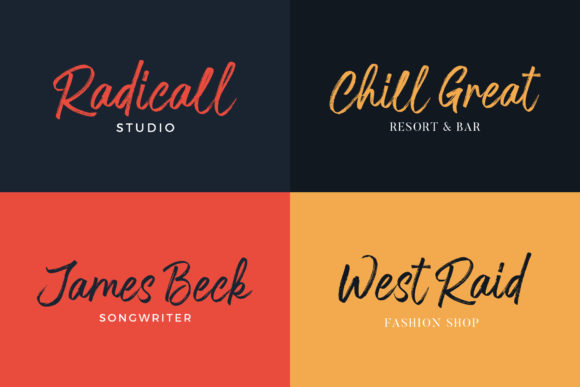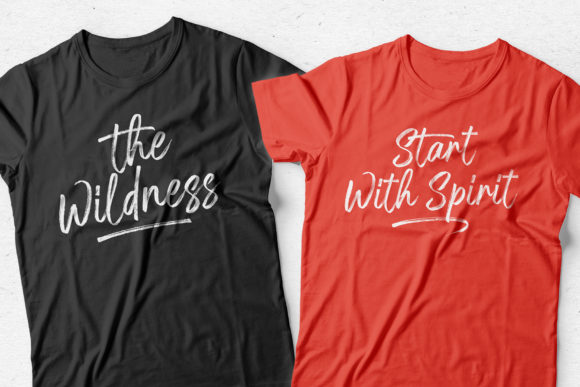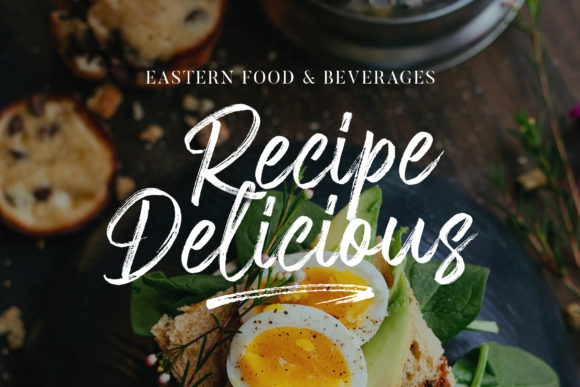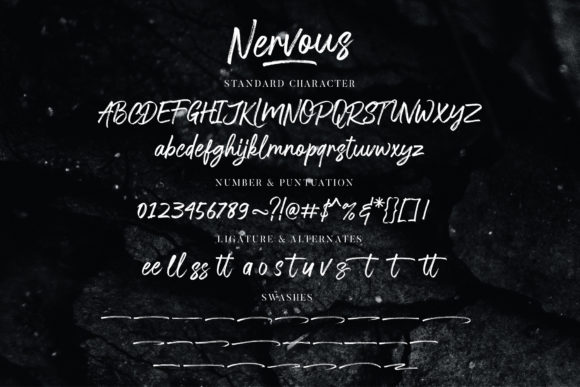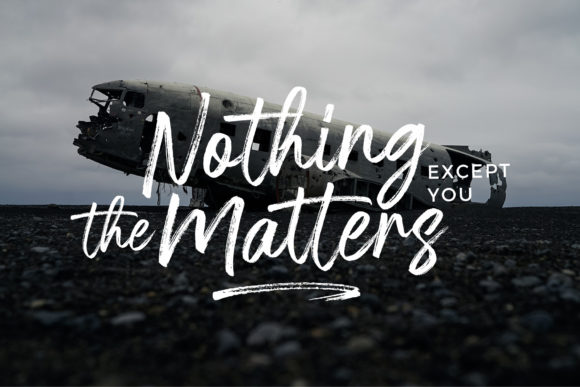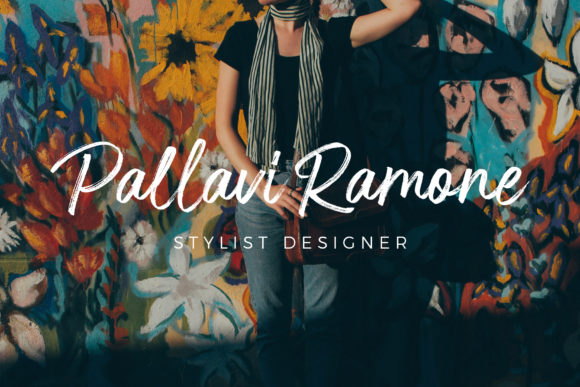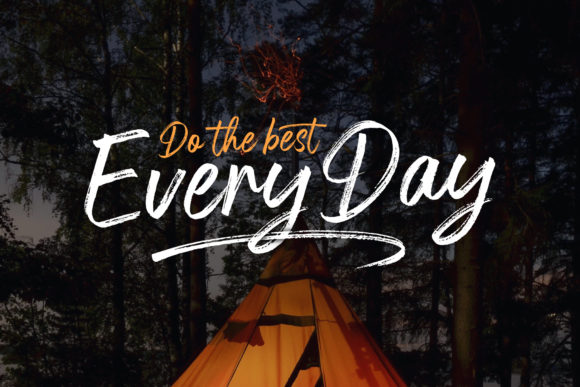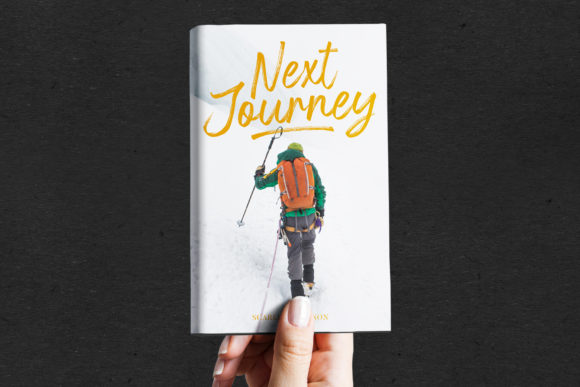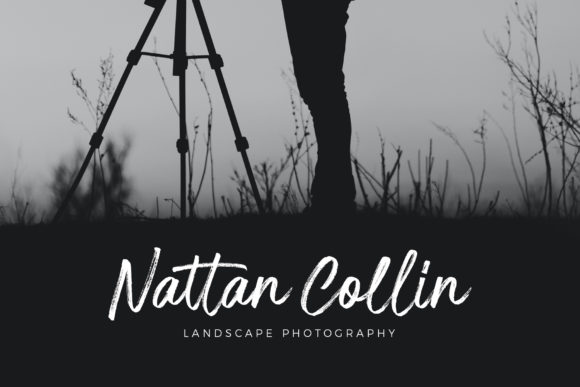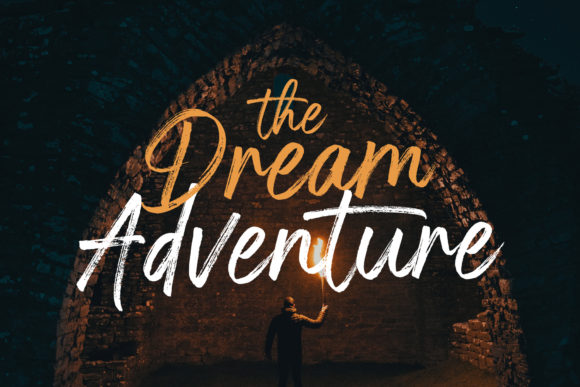
HomeScript FontsNervous Font Script Fonts Nervous Font FacebookXPinterestWhatsApp Nervous Font Poster 2 Nervous Font Poster 3 Nervous Font Poster 4 Nervous Font Poster 5 Nervous Font Poster 6 Nervous Font Poster 7 Nervous Font Poster 8 Nervous Font Poster 9 Nervous Font Poster 10 Nervous Font Poster 11 Nervous Font Poster 12 Nervous Font Poster 13 Nervous Font Poster 14 About Nervous Font Nervous is a handwritten brush font with a bold twist. It will add an authentic spark to any creative project! DOWNLOAD ON CREATIVE FABRICAThis font is sold and delivered by Creative Fabrica. Font Canyon may earn a commission if you buy through this link. People also explored The Forest Factory Font Bartholomew Font Flip Clock: Black Font Hype Font The King Brush Font Love Dingbats Font Sabendino Font Candice Font Right There Font 294 0 TagsNervous Font Previous articleYouther Duo FontNext articleHobenshaw Font LEAVE A REPLY Cancel reply Comment: Please enter your comment! Name:* Please enter your name here Email:* You have entered an incorrect email address! Please enter your email address here Website: Save my name, email, and website in this browser for the next time I comment. Personal Use Free Bebas Neue Font Personal Use Free Read more about this font Jilliant Personal Use Free Read more about this font Kumadinya Personal Use Free Read more about this font Histeria Bites Personal Use Free Read more about this font BLOG Free vs Paid Fonts: Why Investing in Premium Fonts Is Worth It Free vs Paid Fonts: Why Premium Fonts Are Worth It in 2025 The debate of free vs paid fonts continues in the design world. While... Fonts That Capture the Spirit of New York City Best Fonts for T-Shirt Design – Top 2025 Picks Top 10 Handwritten Fonts That Elevate Your Designs